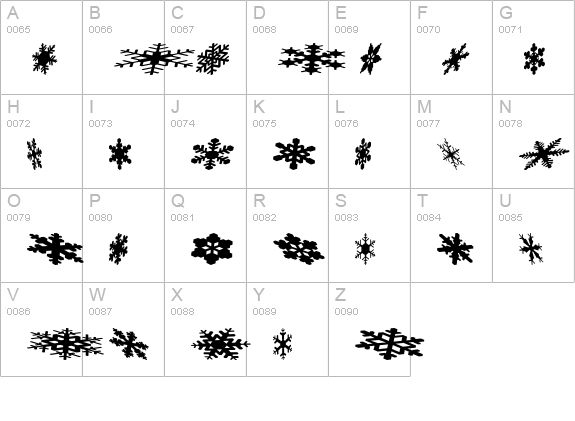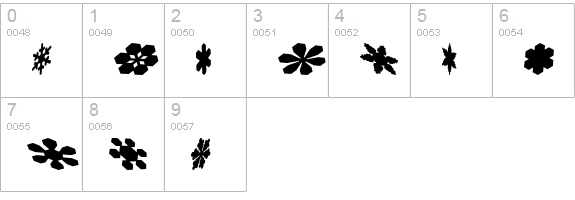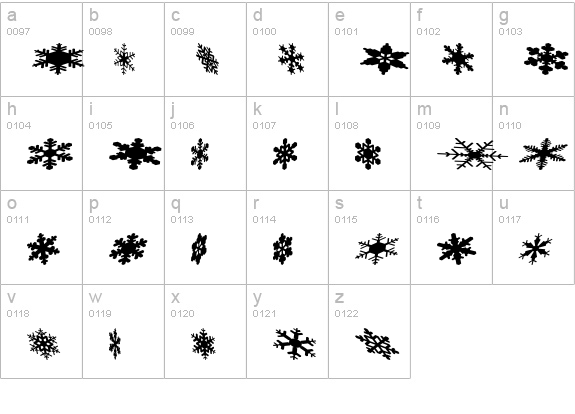
SnowflakesFalling Font Details
SnowflakesFalling is a stunningly beautiful font that captures the essence of delicate snowflakes gracefully floating through a winter sky. Each character is intricately designed to resemble the unique and intricate patterns of real snowflakes, creating a truly enchanting and mesmerizing typeface. The strokes of SnowflakesFalling are elegantly curved, mimicking the gentle movement of falling snowflakes as they dance their way down to the ground. The letters are perfectly balanced, ensuring an effortless and harmonious flow across any design or composition. This font is a true work of art, meticulously crafted to bring a touch of enchantment and elegance to your projects. Whether you're designing a winter-themed greeting card, a cozy holiday invitation, or a captivating logo, SnowflakesFalling will add a touch of magic and wonder to your creations. One of the most remarkable aspects of SnowflakesFalling is that it is available for free. Yes, you read that right – this extraordinary font can be freely downloaded at FontsMarket.com. We believe that creativity should be accessible to all, and by offering SnowflakesFalling without any cost, we hope to inspire and empower designers from all walks of life to bring their visions to life. So, whether you're a professional designer searching for the perfect font to elevate your projects or a creative enthusiast looking to add a touch of winter wonderland to your personal creations, SnowflakesFalling is the ideal choice. Download it for free at FontsMarket.com and let your imagination take flight as you explore the limitless possibilities that this mesmerizing font has to offer.